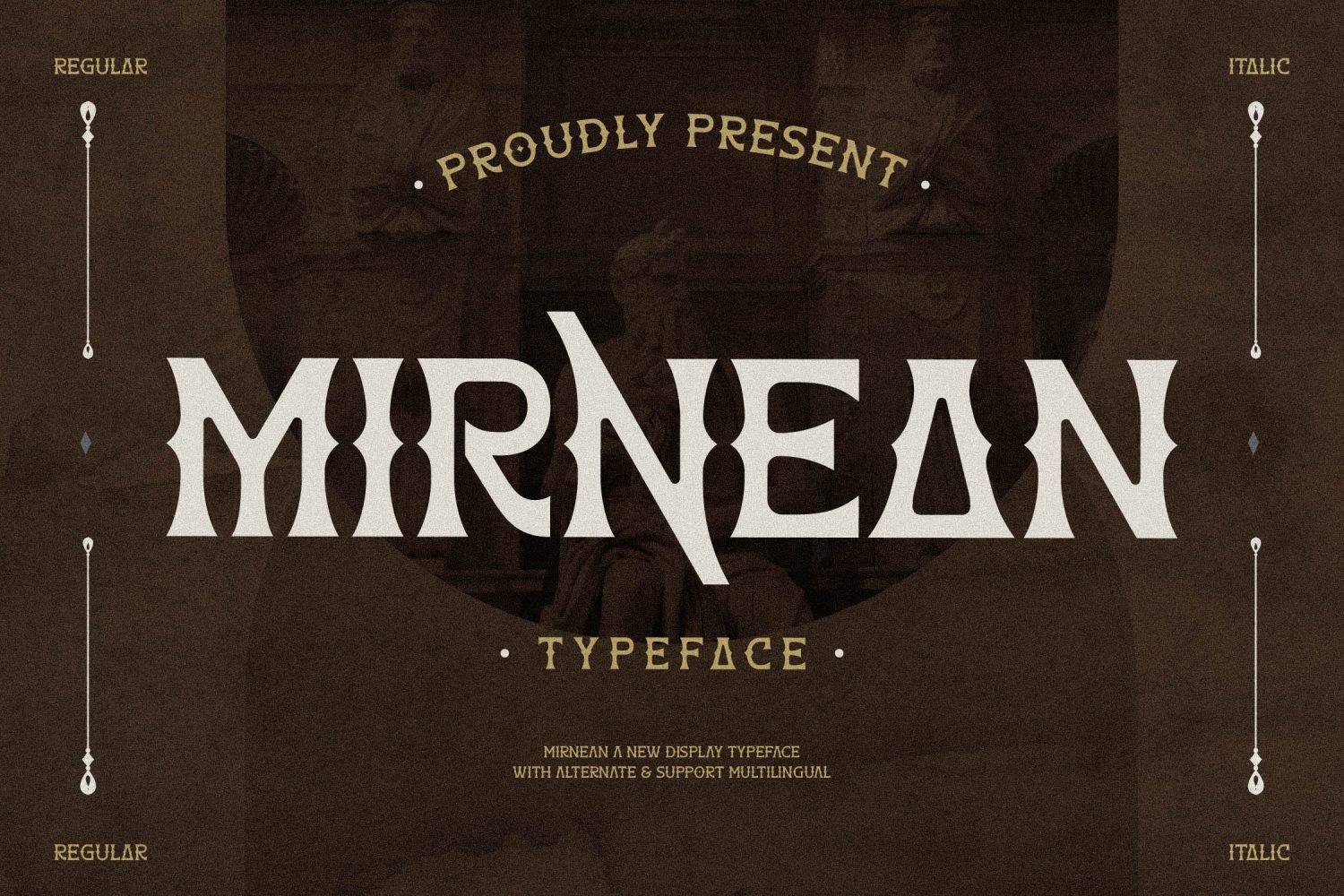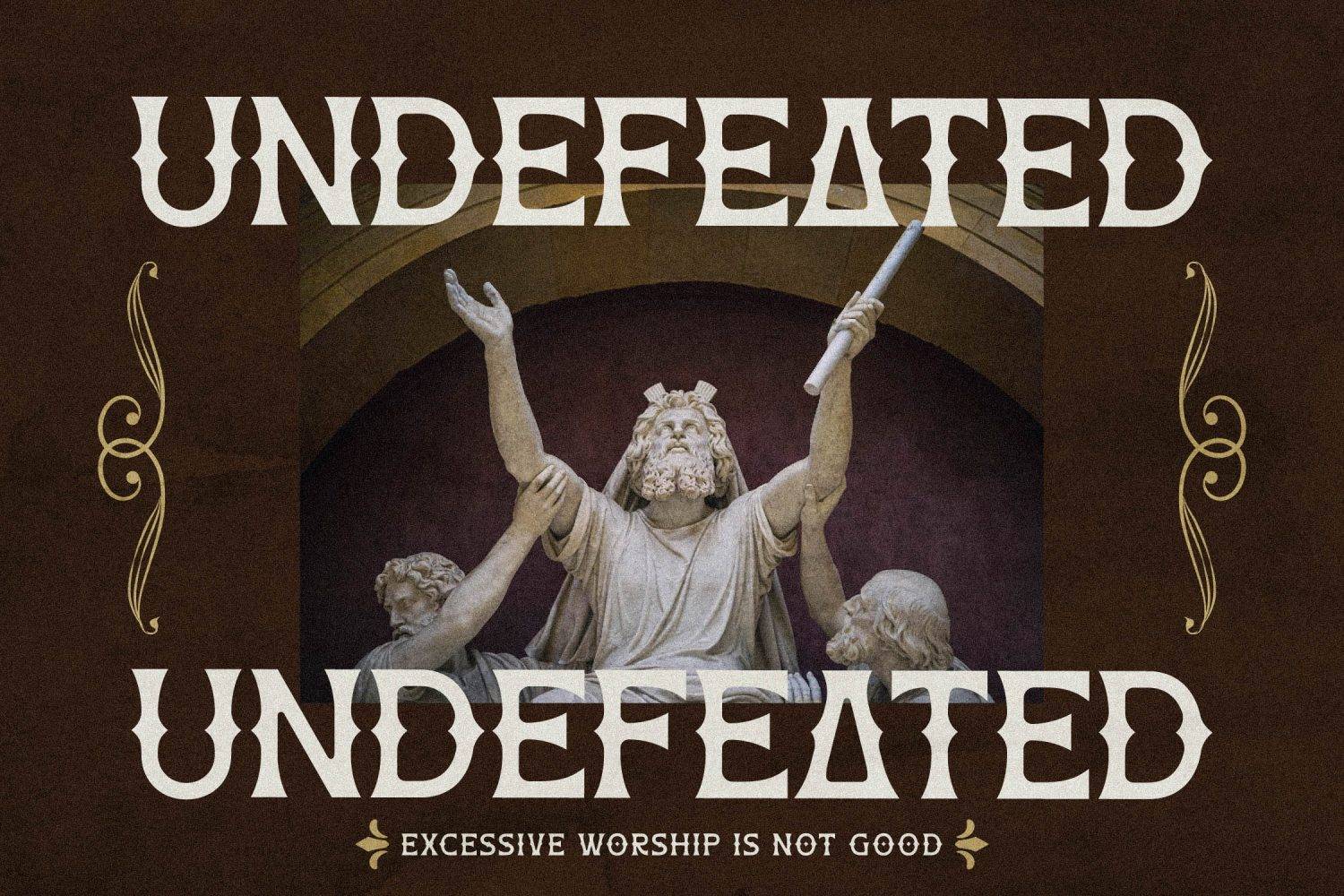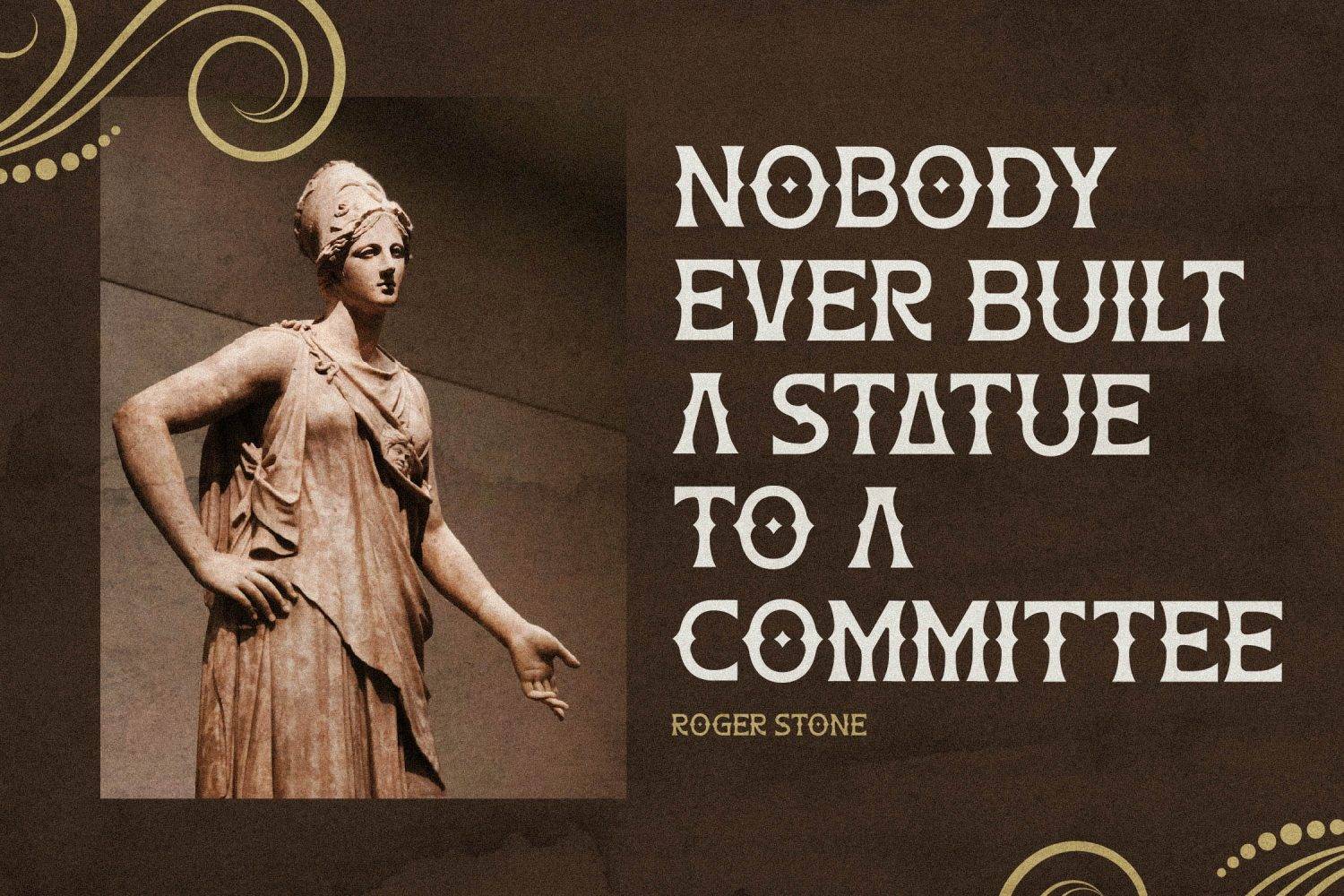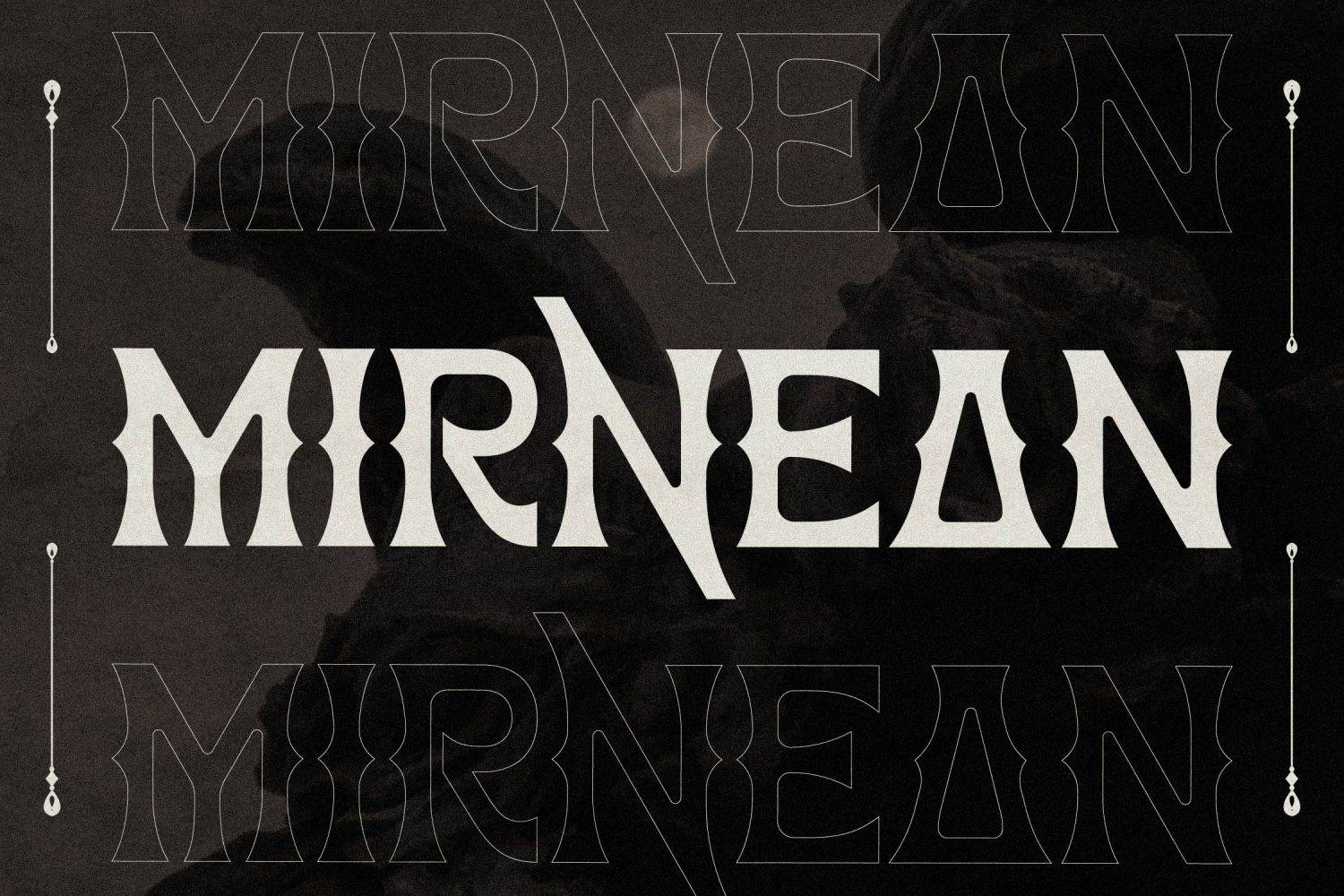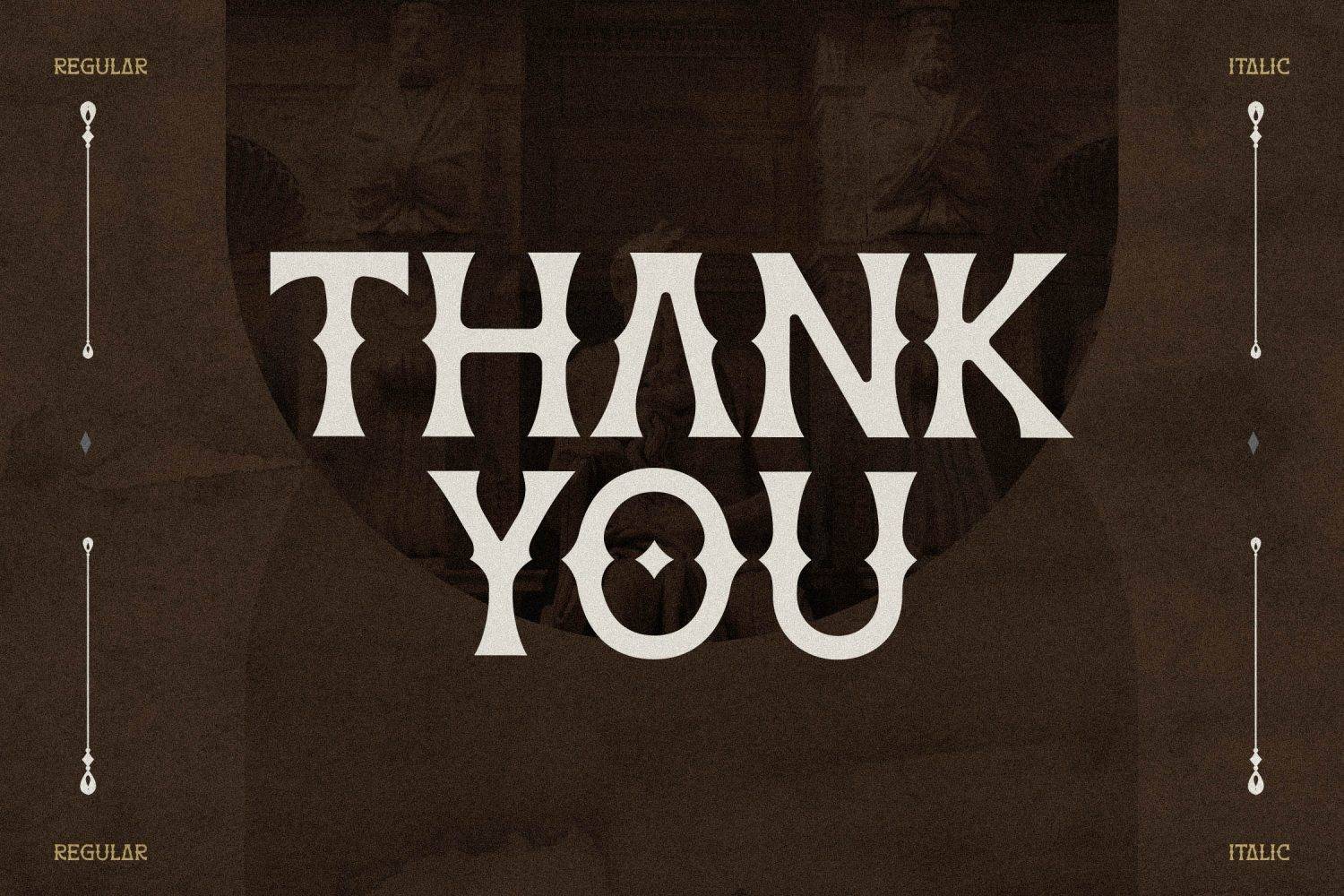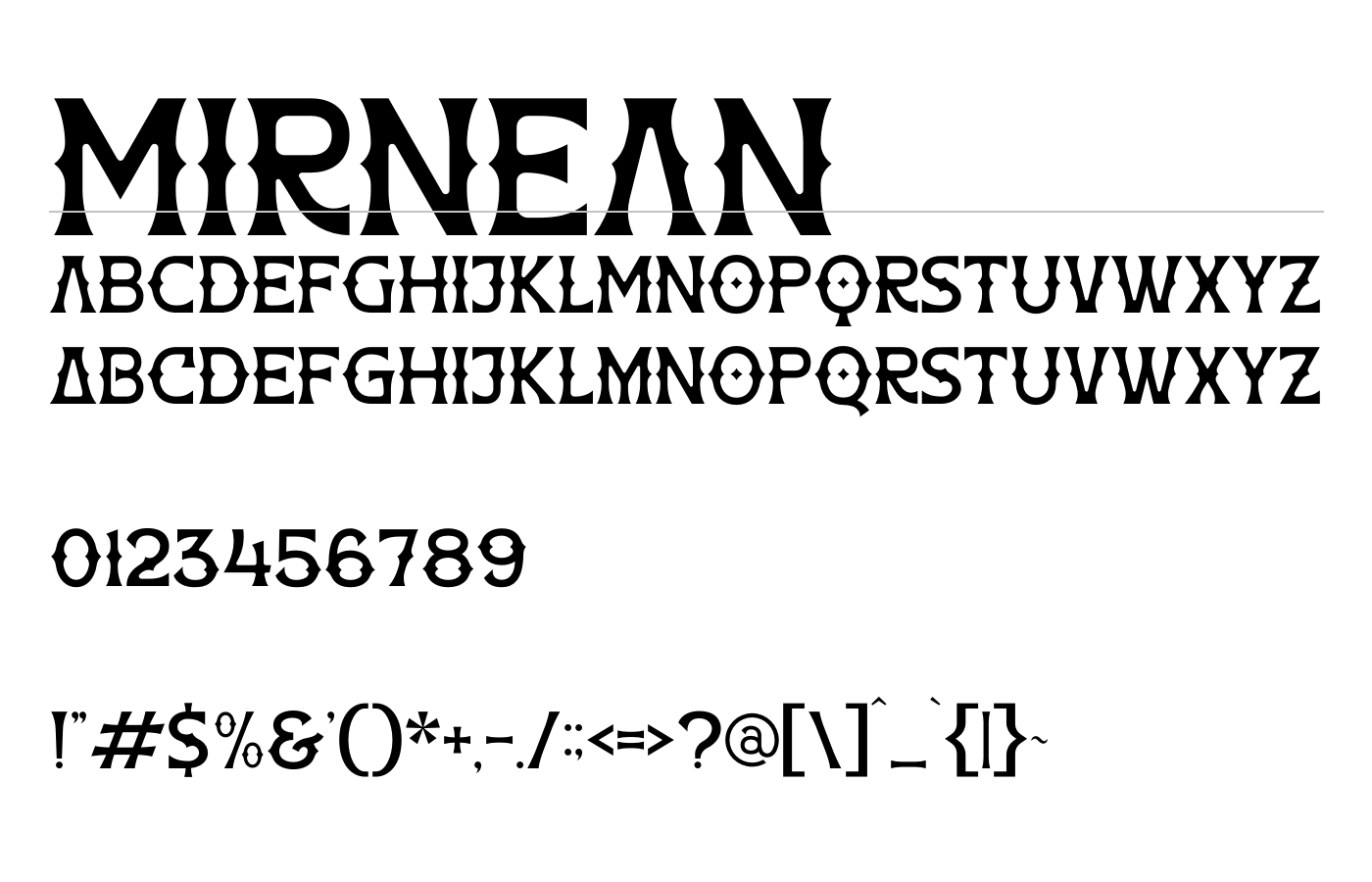
Mirnean is a bold serif font with a distinctive, high-contrast style that merges sharp geometric shapes with artistic flair. Its unique bracketed serifs and playful punctuation give it a vintage yet modern feel, making it ideal for eye-catching headlines, logos, and creative branding that demand character and elegance. This font’s dramatic style makes it well-suited for use in fashion, editorial design, and packaging where a memorable, stylish impression is key.
Mirnean Font
About Mirnean Font